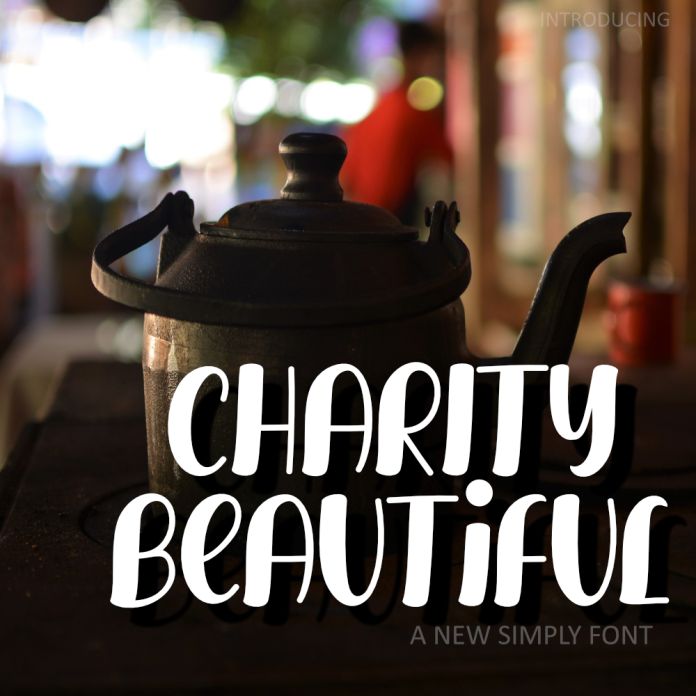
Charity Beautiful is a bold and trendy display font. No matter the topic, this font will be an incredibly asset to your fonts’ library, as it has the potential to elevate any creation.